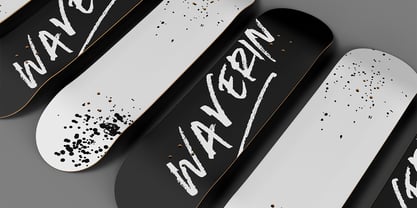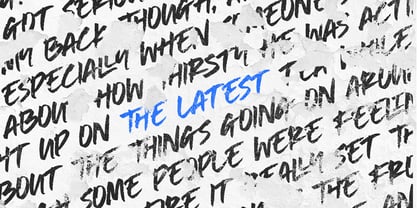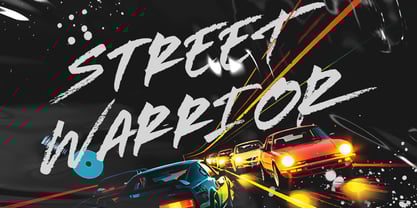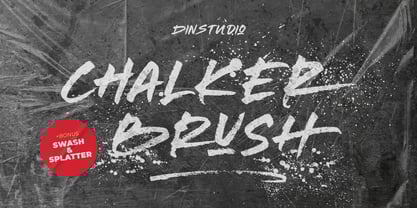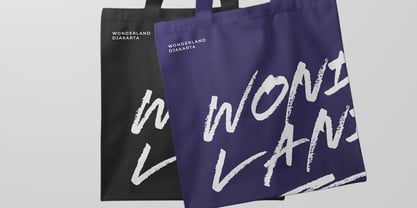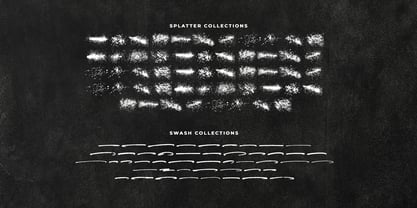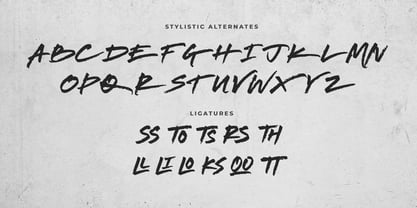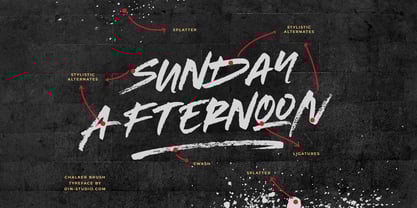
Chalker Brush
by Din Studio
The Chalker Brush Font Family was designed by Donis Miftahudin and published by Din Studio. Chalker Brush contains 3 styles and family package options. More about this family
Chalker Brush is a bold and energetic brush font that brings an urban edge to your designs. Crafted with uppercases, dynamic letters, this typeface maintains consistent proportions for a balanced and cohesive look. To enhance its raw, street-inspired aesthetic, Chalker Brush includes bonus splatters and swashes—perfect for adding a burst of creativity and authenticity. Chalker Brush delivers a distinctive, handcrafted style with contemporary flair. In addition, enjoy the features here.
Features:
• Alternates
• Ligatures
• Multilingual Supports
• Numerals and Punctuations
Chalker Brush fits in headlines, logos, posters, branding materials, packaging, print media, editorial layouts, and many more designs. Find out more ways to use this font by taking a look at the font preview.
Designers: Donis Miftahudin
Foundry: Din Studio
Din Studio is a type design studio founded by Donis Miftahudin in 2017. The studio focuses on creating unique and visually appealing script and display fonts that stand out in the industry. Donis Miftahudin is a well-known type designer in the industry and has created several popular fonts under the Din Studio brand.The fonts designed by Din Studio are characterized by their distinct style and aesthetic appeal. The studio's designs often incorporate unique elements, such as intricate ligatures and swashes, to create fonts that are not only visually stunning but also highly functional. The studio's fonts are often used in a variety of applications, including branding, advertising, and editorial design.Din Studio's fonts are highly regarded in the design community and have received recognition from industry publications and organizations. The studio has been featured in several design blogs and magazines, and its fonts have won awards at prestigious design competitions.One of the hallmarks of Din Studio's work is its commitment to innovation and experimentation. The studio is constantly exploring new techniques and approaches to type design, pushing the boundaries of what is possible in the field. This dedication to innovation has helped Din Studio establish itself as one of the most exciting and influential type design studios in the industry.Overall, Din Studio is a dynamic and innovative type design studio that is pushing the boundaries of what is possible in the field. With its focus on unique and visually appealing script and display fonts, the studio is poised to continue making a significant impact in the design community for years to come.